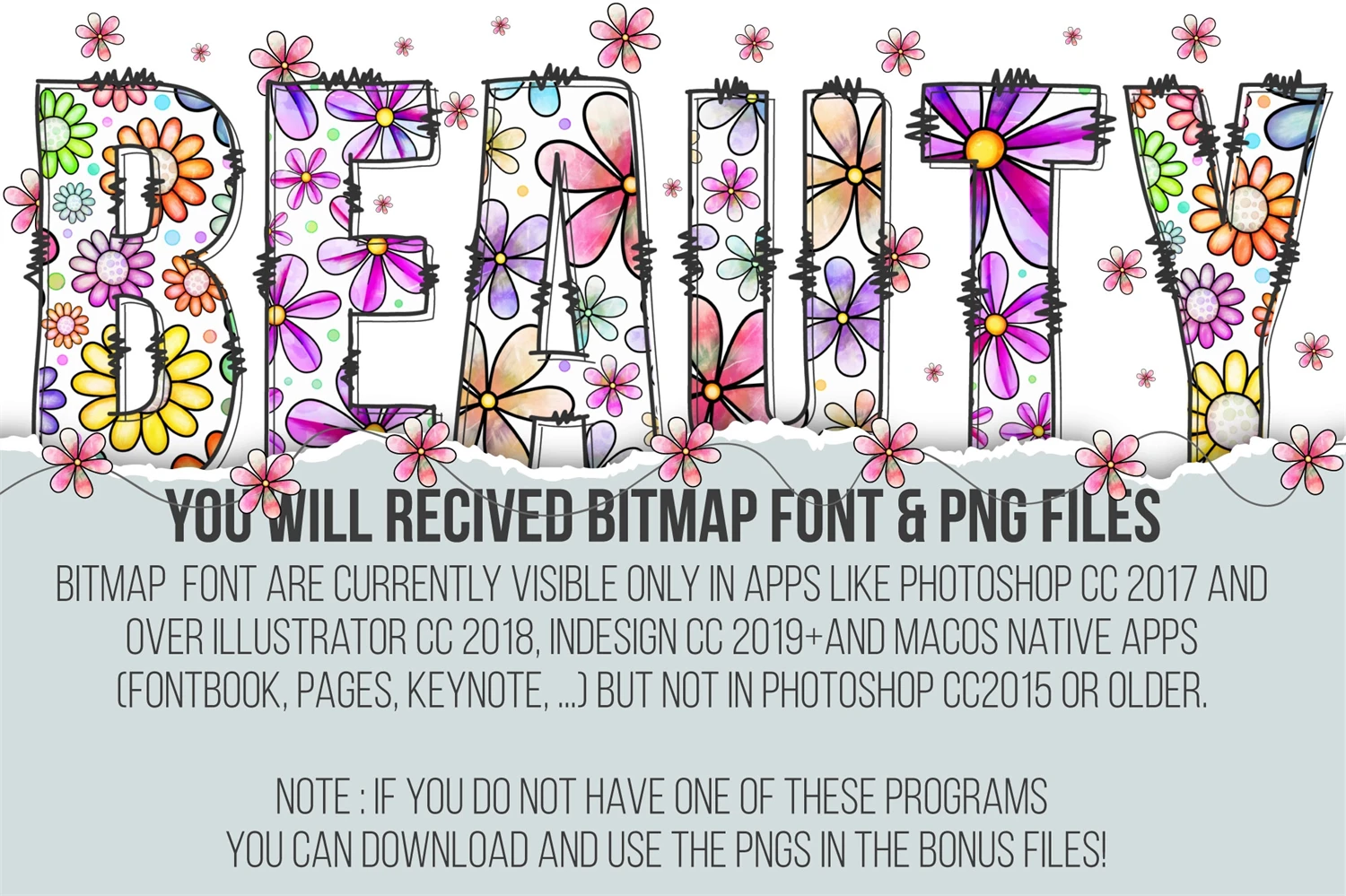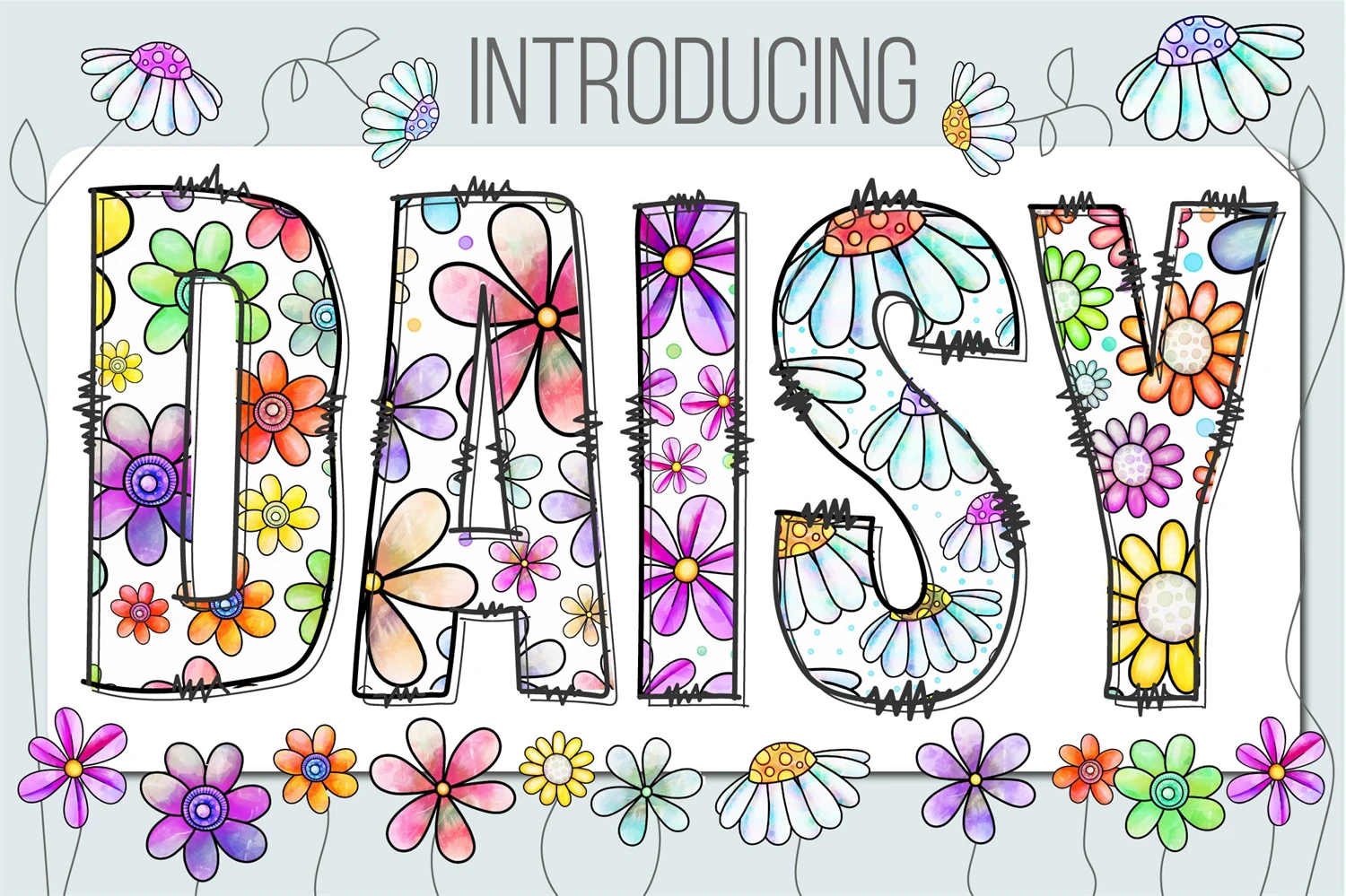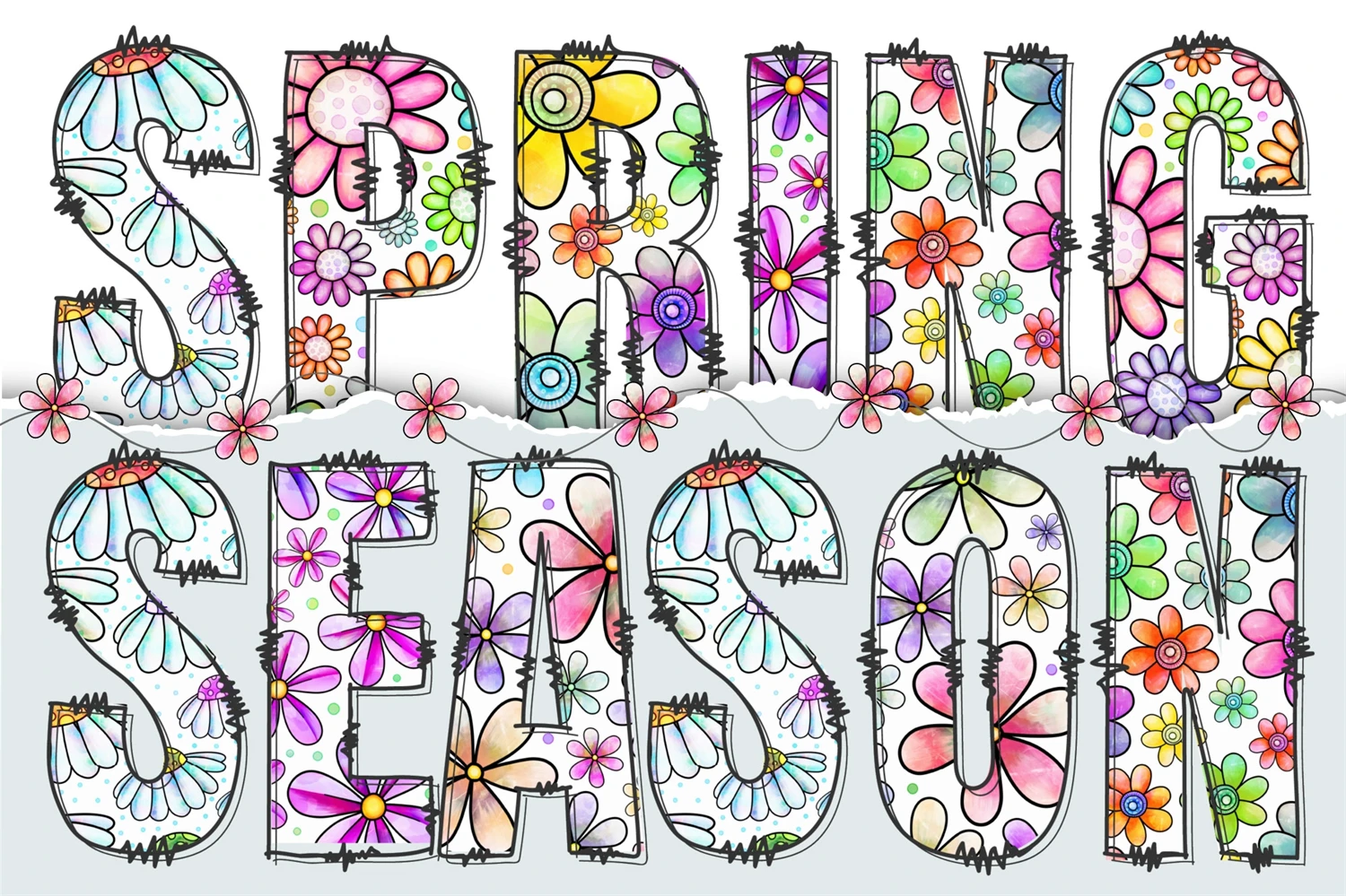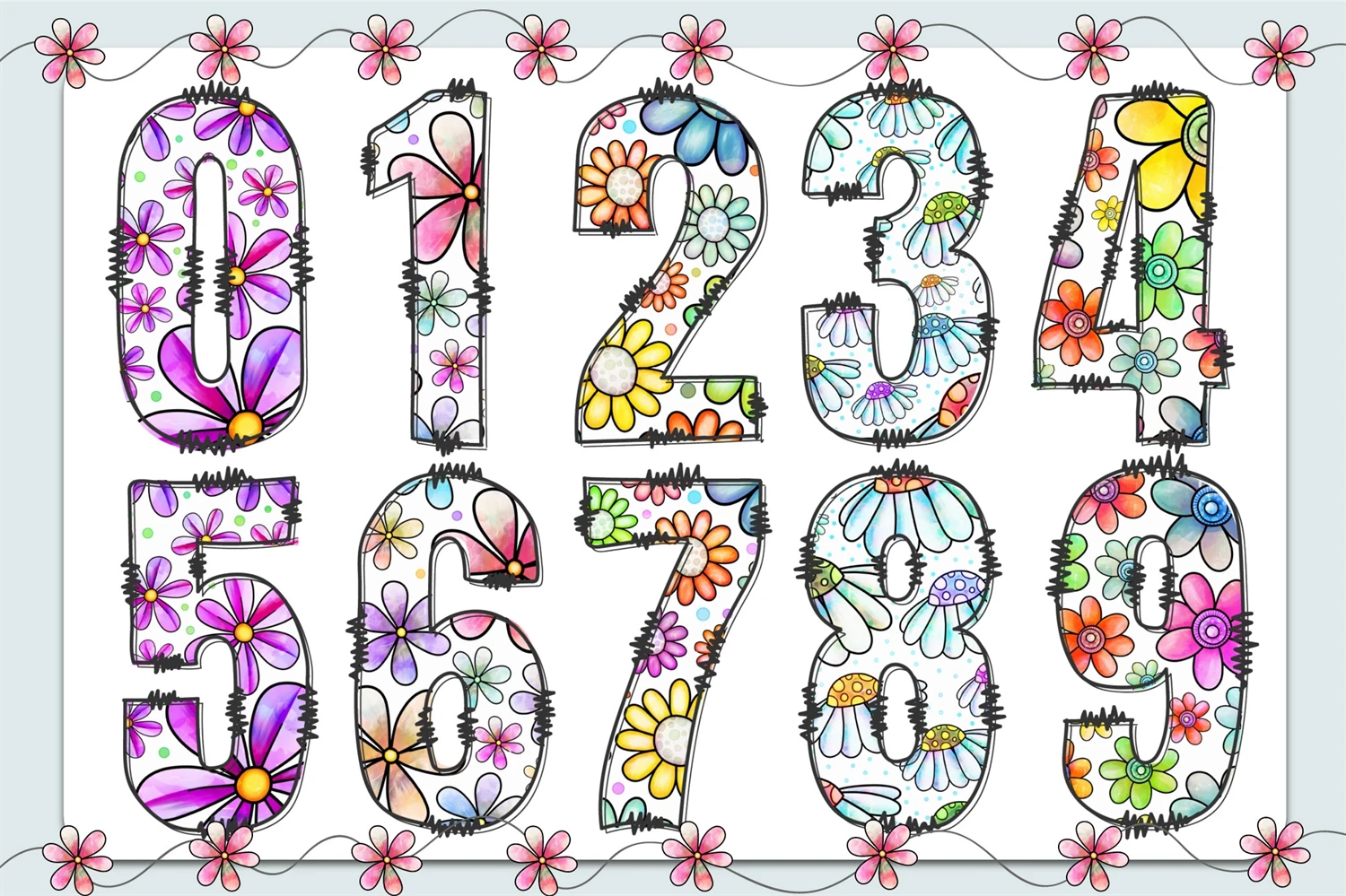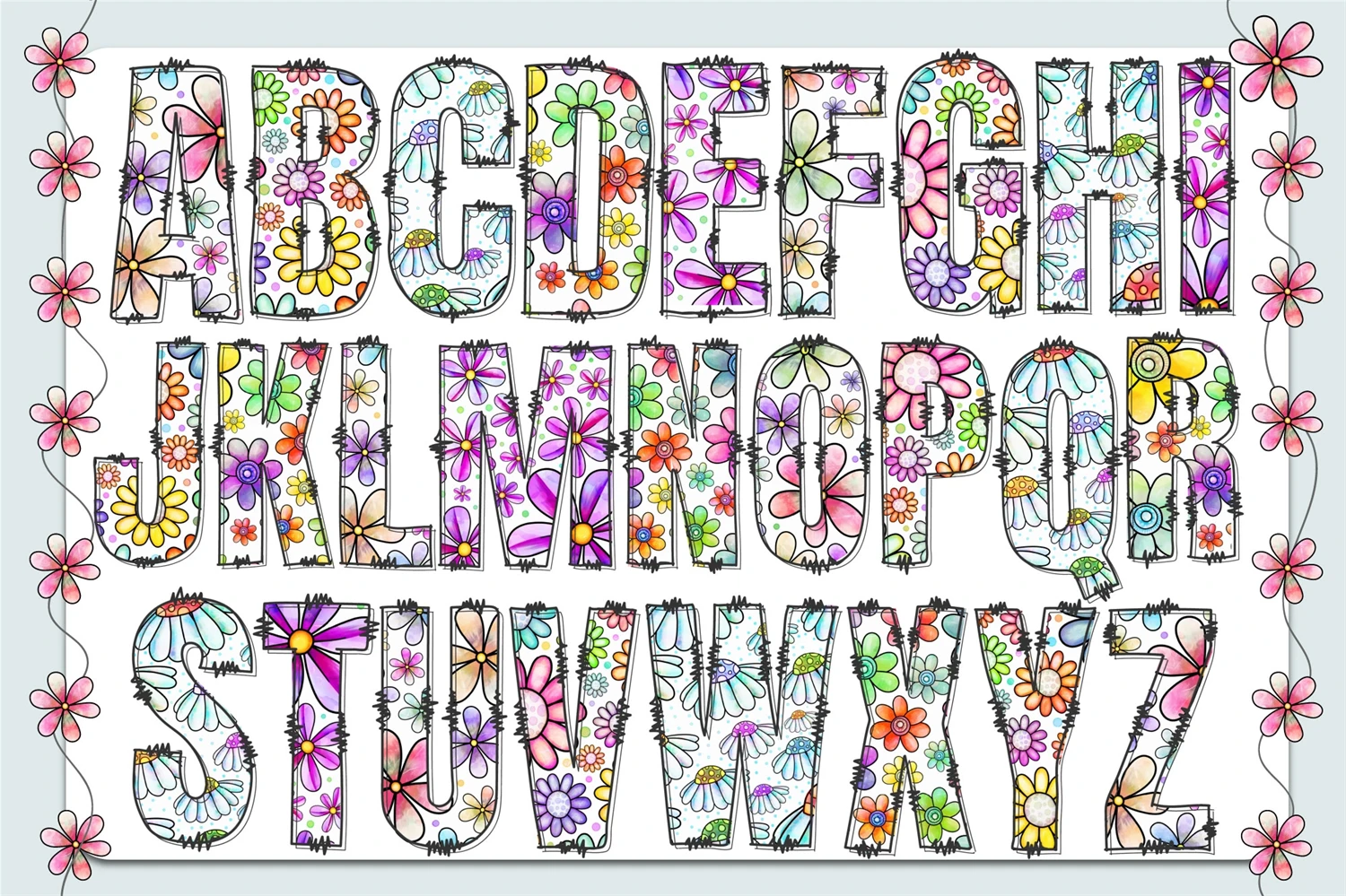
Daisy Font and Alphabet Whimsical Floral Letters for Creative Designs
Bring a touch of nature to your designs with the Daisy Font and Alphabet! Each letter is carefully crafted with playful, hand-drawn daisies, adding a cheerful and whimsical feel to your projects. This font is perfect for spring-themed designs, wedding invitations, baby showers, greeting cards, and more.
Whether youre creating charming posters, fun craft projects, or nature-inspired branding, the Daisy Font and Alphabet adds a fresh and lighthearted vibe to any project. With its floral, decorative style, its ideal for both digital and print designs.
Bring a touch of nature to your designs with the Daisy Font and Alphabet! Each letter is carefully crafted with playful, hand-drawn daisies, adding a cheerful and whimsical feel to your projects. This font is perfect for spring-themed designs, wedding invitations, baby showers, greeting cards, and more.
Whether youre creating charming posters, fun craft projects, or nature-inspired branding, the Daisy Font and Alphabet adds a fresh and lighthearted vibe to any project. With its floral, decorative style, its ideal for both digital and print designs.